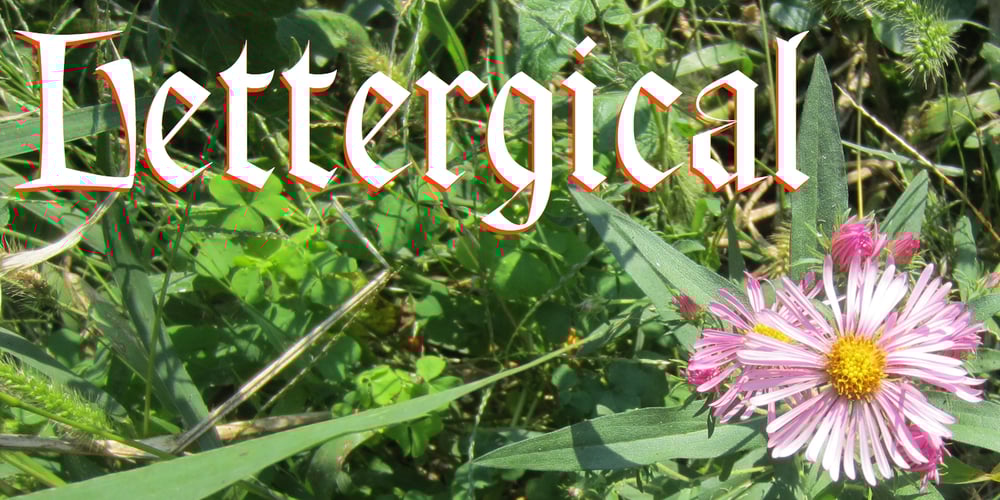
Lettergical
Lettergical font
Lettergical Font Family was designed by Robert Schenk and published by Ingrimayne Type. Lettergical contains 1 styles and family package options. The lower case of Lettergical is a mixture of several medieval styles and the upper case is a variant of Lombardic. Lettergical resembles lettering often used for religious or devotional uses, and its name is an attempt to create a homophone of liturgical that incorporates the word “letter”.